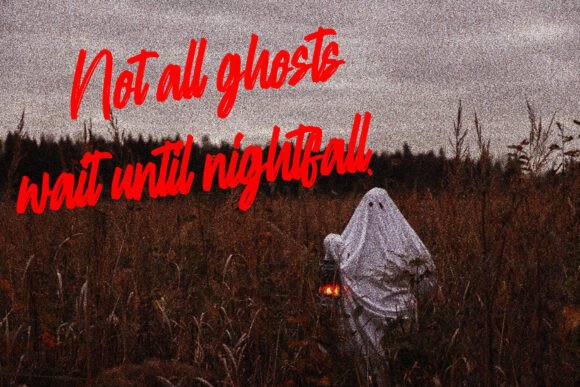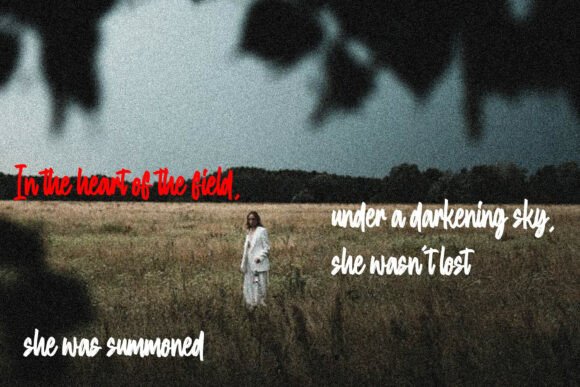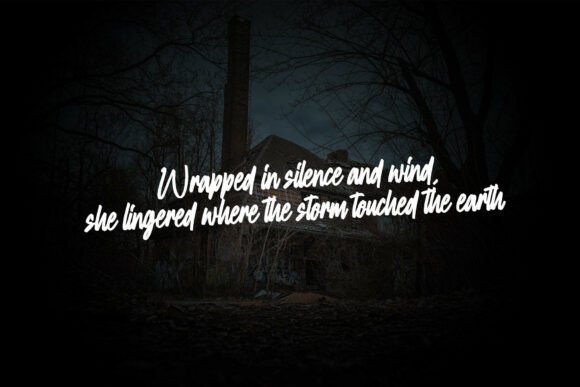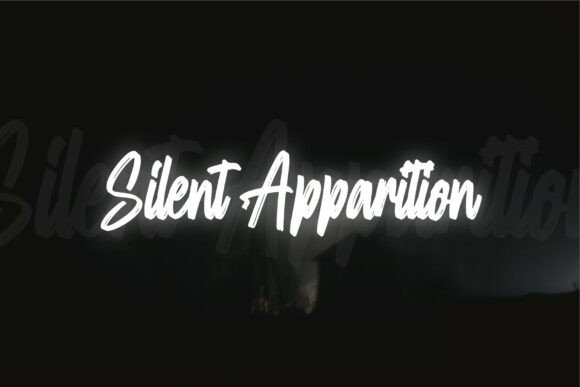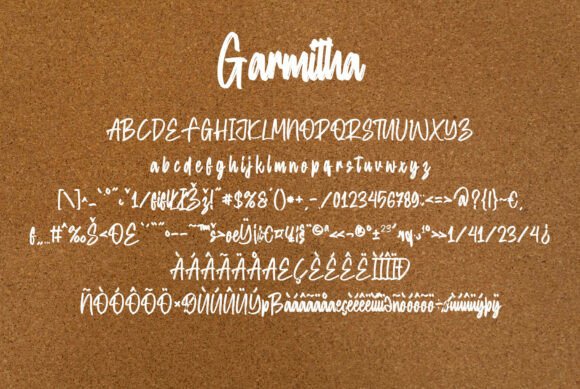
The Designer’s Delight: Garmitha Font
I’ll never forget the time I was working on a retro-themed branding project for a local craft brewery. My client wanted a font that would evoke the feeling of a bygone era, something with character and personality. I scoured the internet, tried countless fonts, but nothing seemed quite right. That was until I stumbled upon Garmitha Font. ✨
This bold vintage script font has a hand-painted brush feel that’s perfect for adding a touch of nostalgia to your designs. Its textured strokes and natural flow make it ideal for retro logos, packaging, posters, and handcrafted branding. In this article, I’ll share my experience with Garmitha, its features, and how to get the most out of this beautiful font.
- ✨ Unique hand-painted brush feel that adds character to any design
- ✅ Bold and eye-catching, perfect for making a statement
- ✅ Textured strokes that give designs a natural, organic feel
- ✅ Works well for both digital and print designs
While Garmitha is an amazing font, there are a few things to keep in mind: 🤔
- ⚠️ Some characters may not work well at very small sizes due to the textured strokes
- ⚠️ Limited language support, so it’s best to use it for English or similar languages
Garmitha was inspired by the classic script fonts of the past, with a modern twist. Its creator, a talented type designer, wanted to capture the feeling of hand-painted signs and posters from the early 20th century. The result is a font that’s both nostalgic and timeless.
| Font Name | Garmitha Font |
| Author | chatype studio |
Q: What type of designs is Garmitha best suited for?
A: Garmitha is perfect for retro-themed designs, such as logos, packaging, posters, and handcrafted branding.
Q: Is Garmitha a difficult font to use?
A: No, Garmitha is a relatively easy font to use, even for beginners. Its simple, intuitive design makes it easy to work with, and its OpenType features are easy to access.